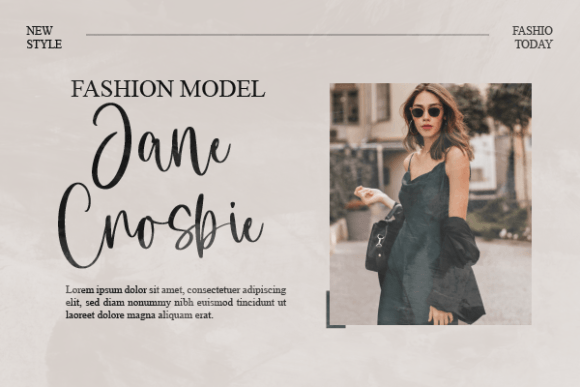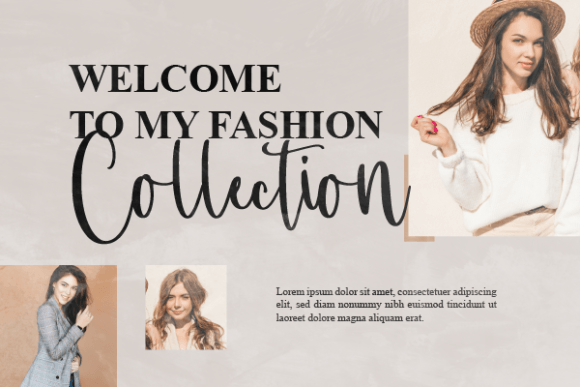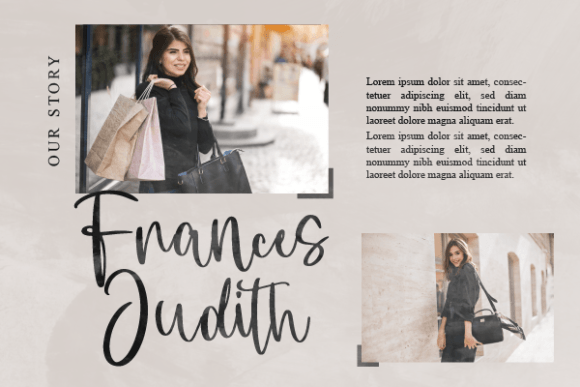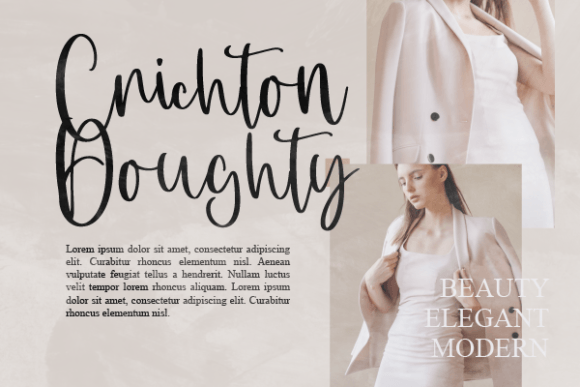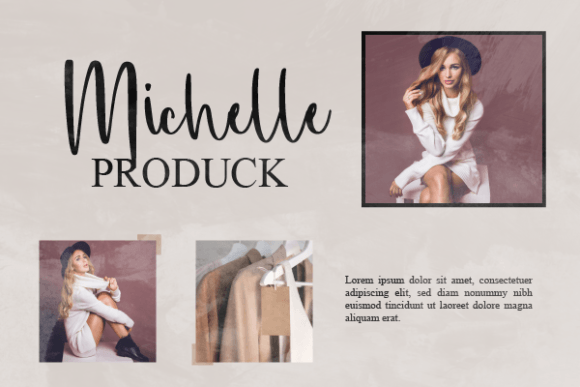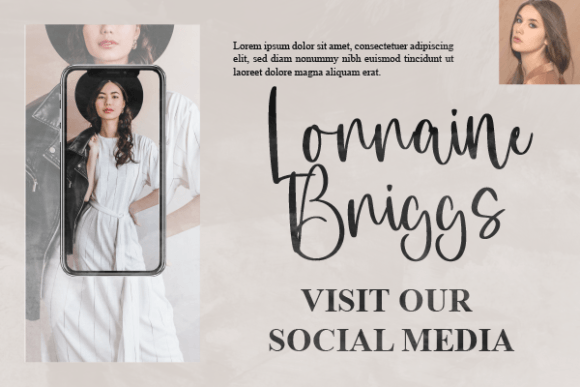
Hamilton Campbell Font: The Elegant and Charming Choice for Designers and Crafters
Are you looking for a font that exudes elegance and charm? Look no further than the Hamilton Campbell Font. This beautiful handwritten font is perfect for adding a touch of sophistication to any design project. In this article, we’ll take a closer look at the Hamilton Campbell Font, its features, and how it can elevate your designs.
What is Hamilton Campbell Font?
Hamilton Campbell Font is a modern script font that features elegant and flowing lines. It was designed to mimic the look of handwritten calligraphy, making it perfect for designs that require a personal touch. The font is highly legible and versatile, making it suitable for a wide range of design applications.
Key Features of Hamilton Campbell Font
- Elegant and Charming: Hamilton Campbell Font feels equally charming and elegant, making it perfect for designs that require a touch of sophistication.
- Handwritten Look: The font features a handwritten look that adds a personal touch to any design.
- Highly Legible: The font is highly legible, making it easy to read and understand.
- Versatile: Hamilton Campbell Font is suitable for a wide range of design applications, including wedding invitations, thank you cards, quotes, greeting cards, logos, business cards, and more.
Uses of Hamilton Campbell Font
Hamilton Campbell Font is a versatile font that can be used for a variety of design projects. Here are some of the most popular uses of this font:
- Wedding Invitations: The font’s elegant and charming look makes it perfect for wedding invitations, save-the-date cards, and other wedding-related designs.
- Thank You Cards: Hamilton Campbell Font is also great for thank you cards, greeting cards, and other stationery designs.
- Quotes and Typography: The font’s elegant lines make it perfect for quotes, typography, and other text-based designs.
- Logos and Branding: Hamilton Campbell Font can also be used for logos, branding, and other marketing materials.
- Business Cards: The font’s professional look makes it suitable for business cards, resumes, and other professional designs.
Why Designers and Crafters Love Hamilton Campbell Font
Designers and crafters love Hamilton Campbell Font for several reasons:
- Elegant Look: The font’s elegant and charming look makes it perfect for designs that require a touch of sophistication.
- Easy to Use: Hamilton Campbell Font is highly legible and easy to use, making it a great choice for designers and crafters of all levels.
- Versatile: The font’s versatility makes it suitable for a wide range of design applications.
- Unique: Hamilton Campbell Font is a unique font that can help designers and crafters stand out from the crowd.
Tips for Using Hamilton Campbell Font
Here are some tips for using Hamilton Campbell Font:
- Use it for Headings: Hamilton Campbell Font is perfect for headings, titles, and other text that requires a touch of elegance.
- Pair it with Other Fonts: The font can be paired with other fonts to create a unique and interesting look.
- Experiment with Colors: Hamilton Campbell Font looks great in a variety of colors, so don’t be afraid to experiment.
- Use it for Digital and Print Designs: The font is suitable for both digital and print designs, making it a great choice for designers and crafters who work on a variety of projects.
In conclusion, Hamilton Campbell Font is a beautiful and elegant font that is perfect for designers and crafters who want to add a touch of sophistication to their designs. Its highly legible and versatile nature makes it suitable for a wide range of design applications, from wedding invitations to logos and branding. With its elegant lines and charming look, Hamilton Campbell Font is sure to elevate your designs and help you stand out from the crowd.